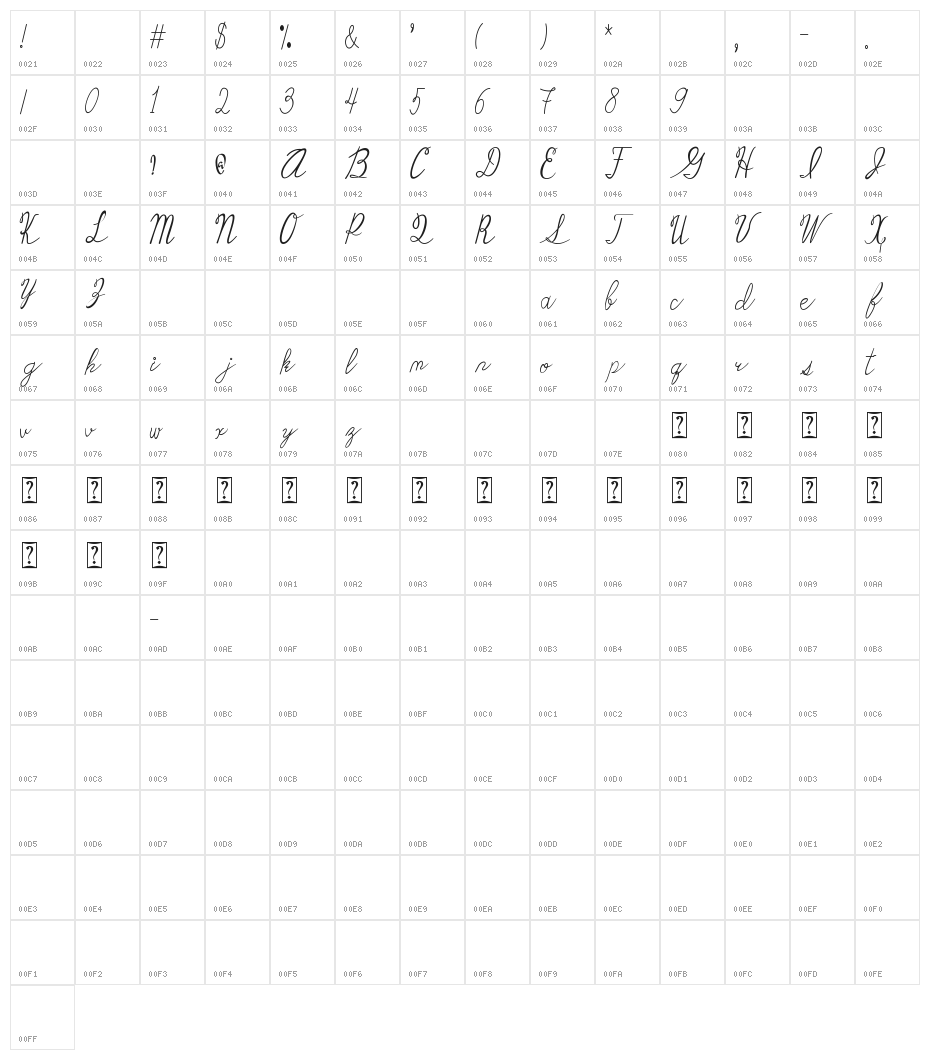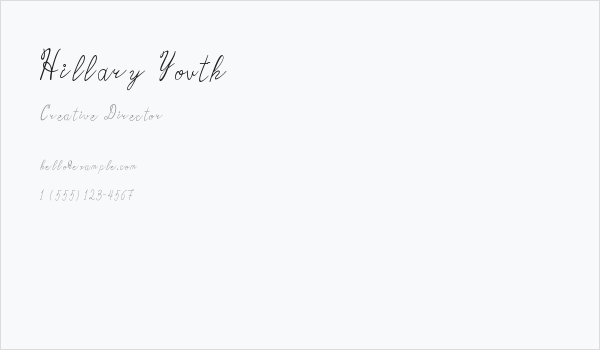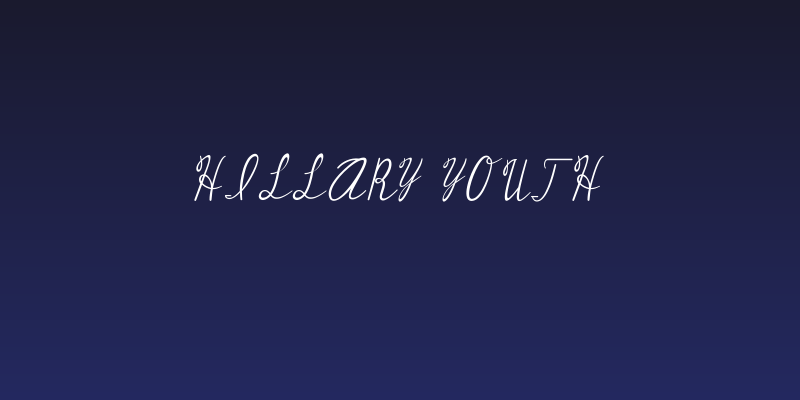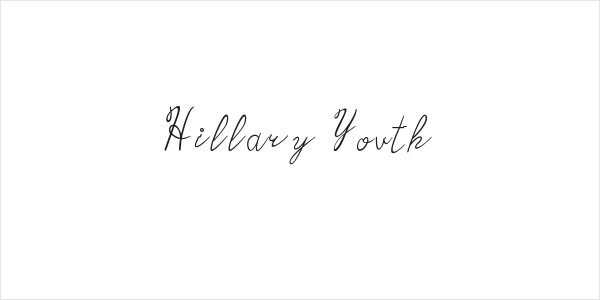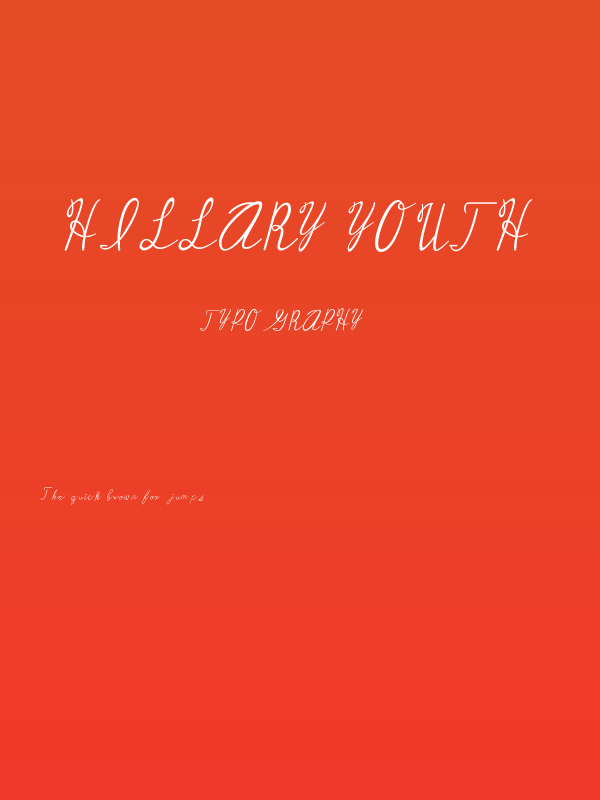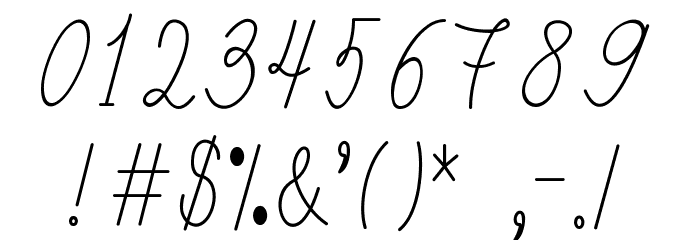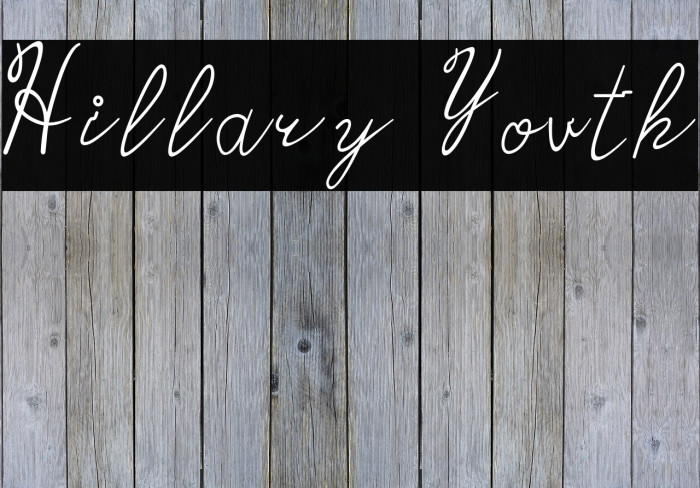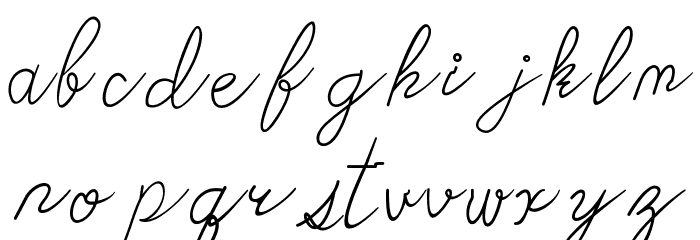
Hillary Youth Font
Hillary Youth Description
This elegant script font features a flowing, cursive style with a sophisticated and graceful appearance. The uppercase letters are characterized by their sweeping curves and delicate loops, giving them a sense of movement and fluidity. The lowercase letters maintain a consistent style, with smooth connections between each character, enhancing the overall readability. The numerals are designed to match the script style, with a touch of flair that complements the letters. Special characters are thoughtfully integrated, maintaining the font's cohesive look. This font exudes a sense of elegance and refinement, making it suitable for formal and decorative purposes.
| Overall Style | Elegant, Decorative |
| Use Case | Headlines, Invitations, Branding |
| Proposed Projects | Ideal for wedding invitations, elegant branding, greeting cards, and decorative headings. |